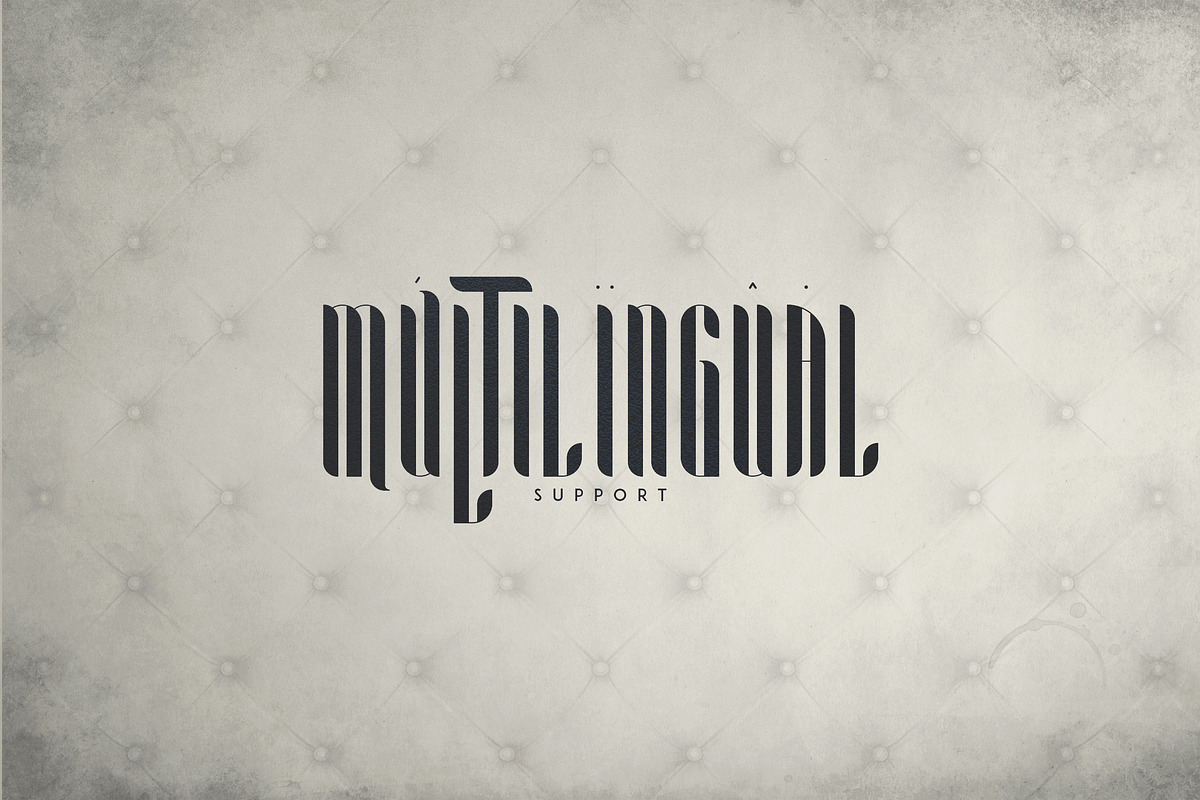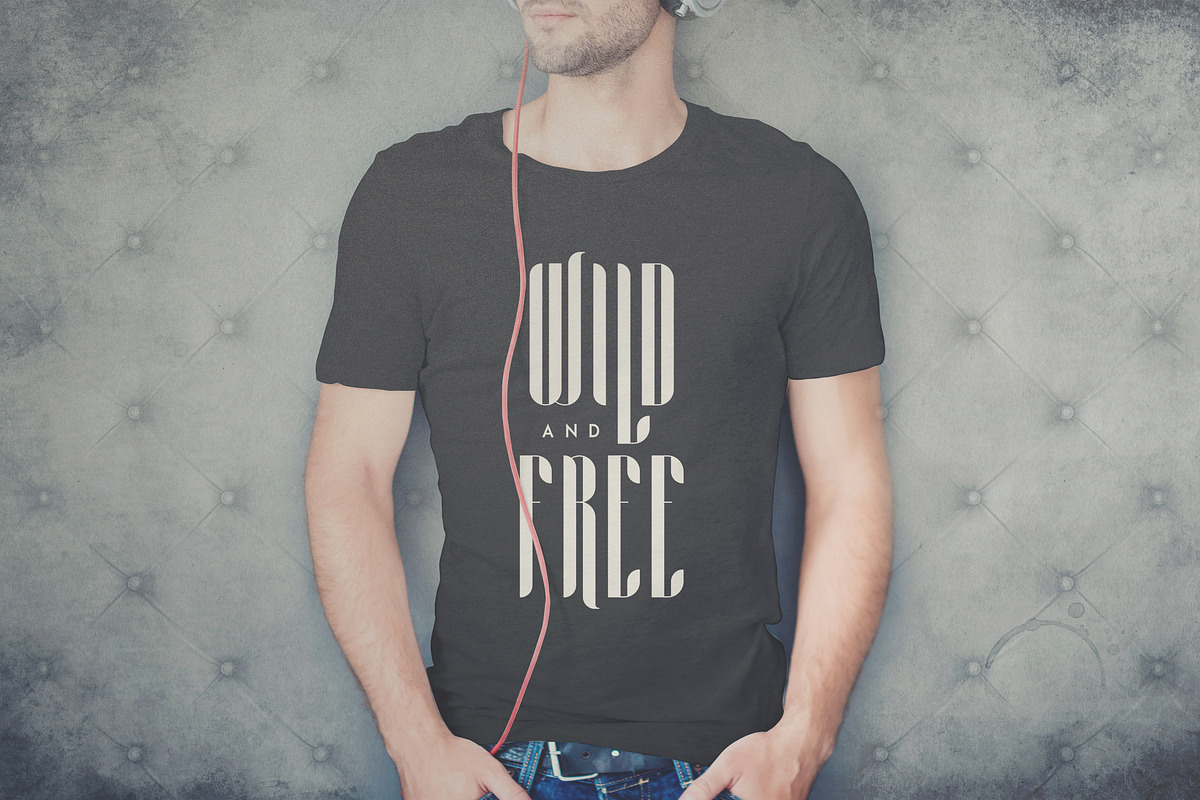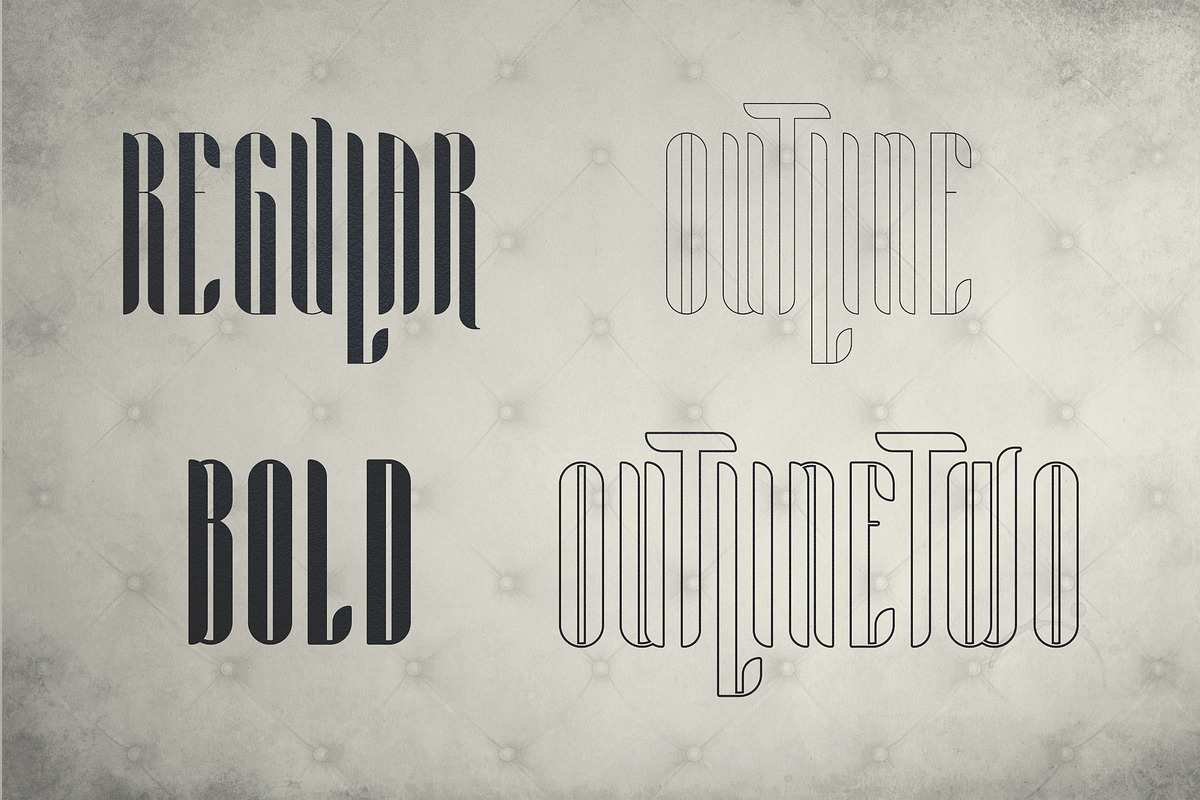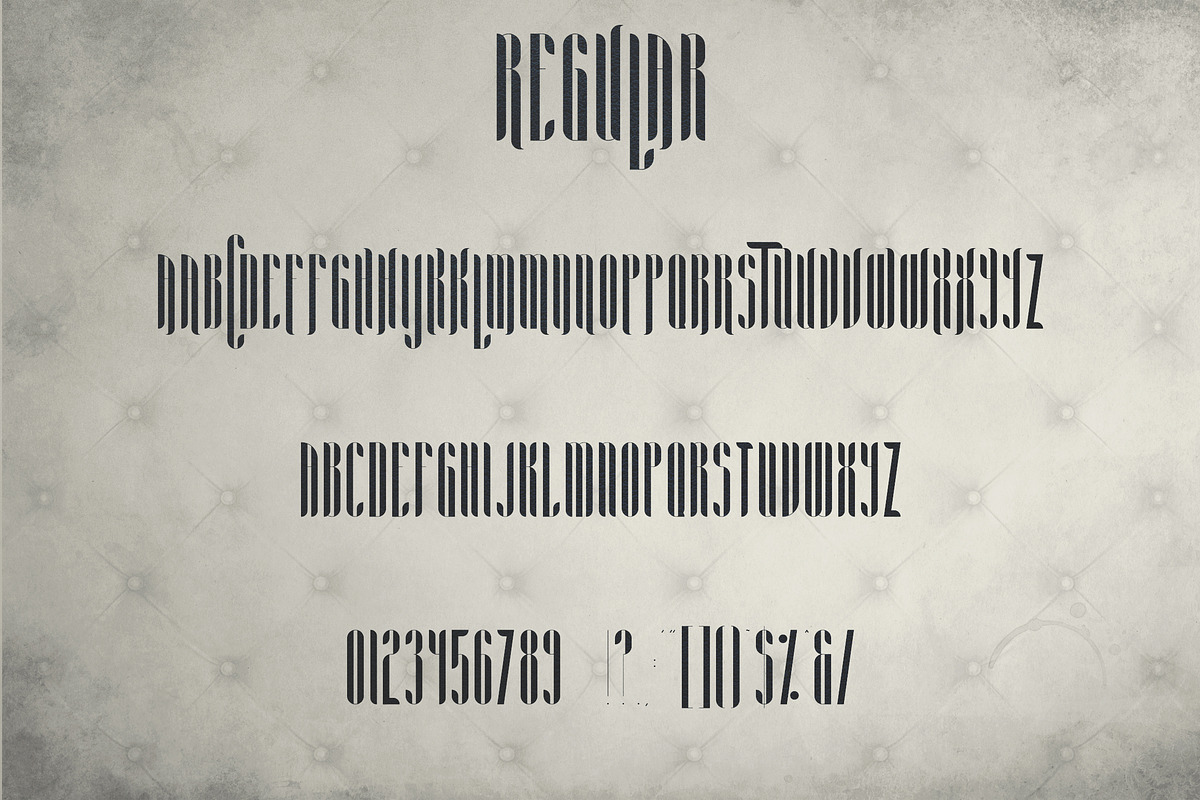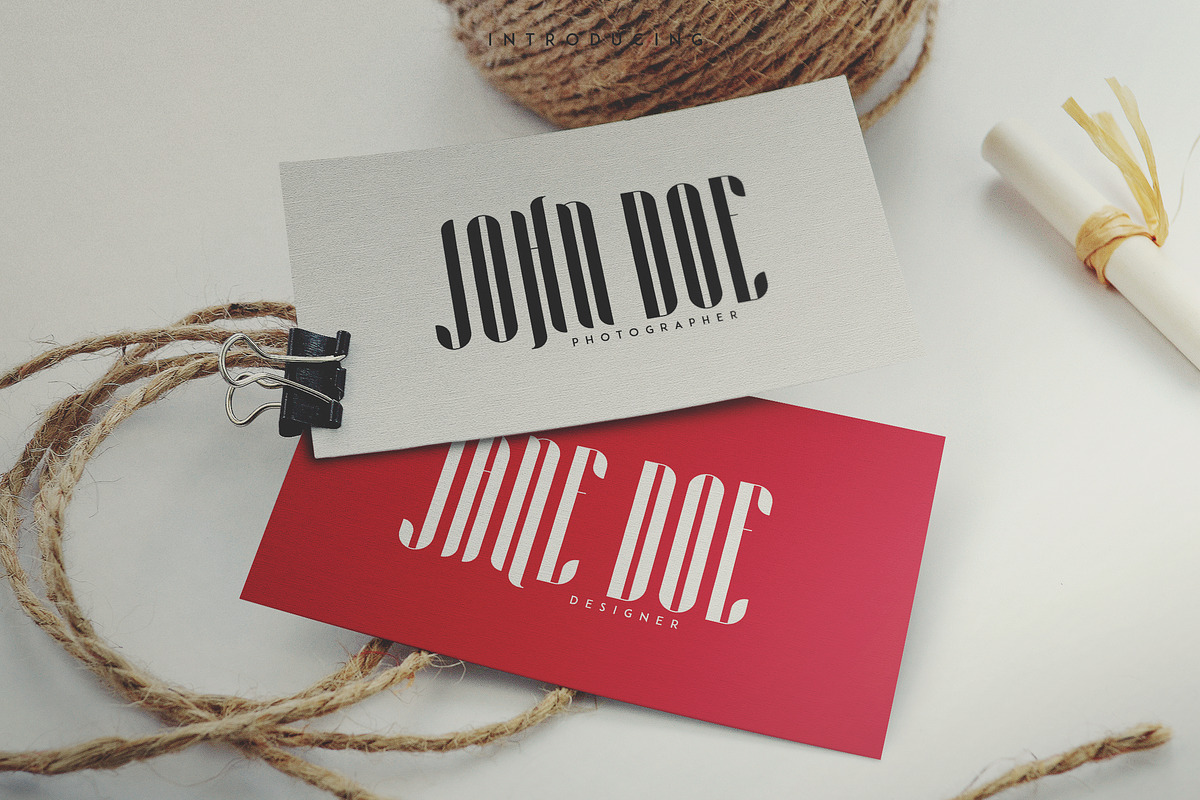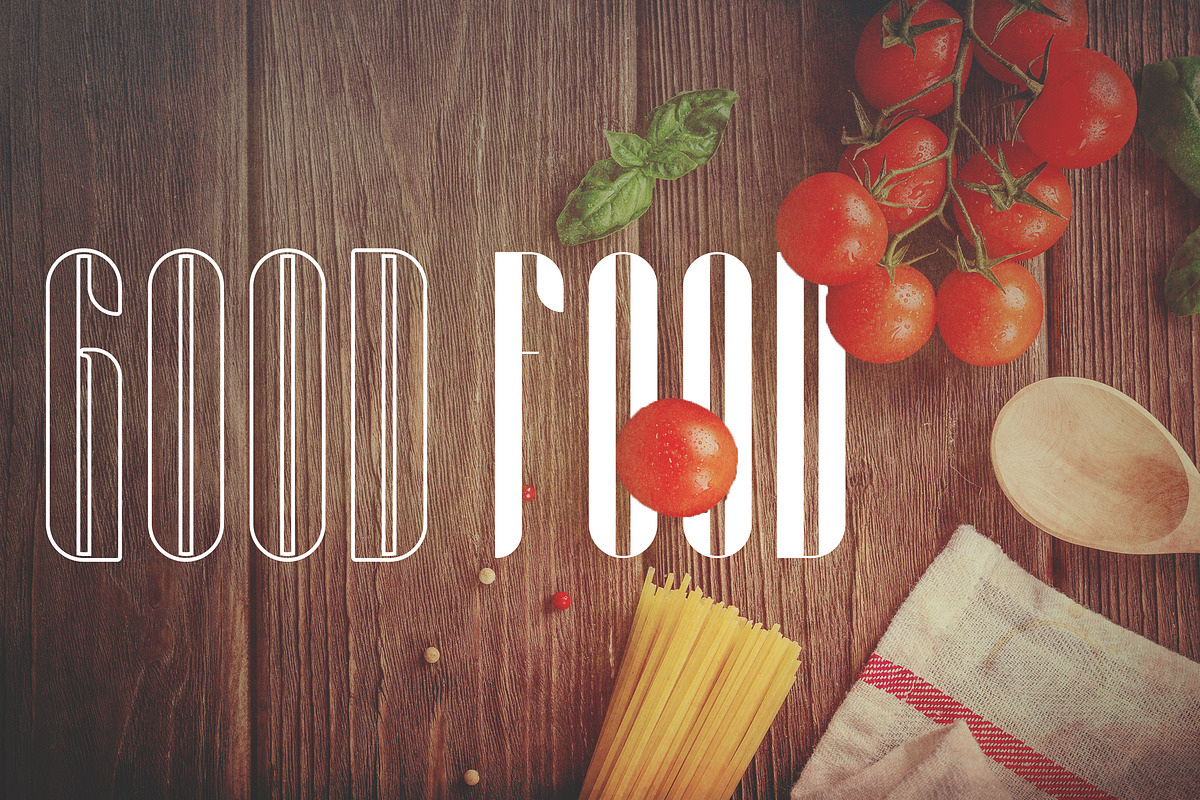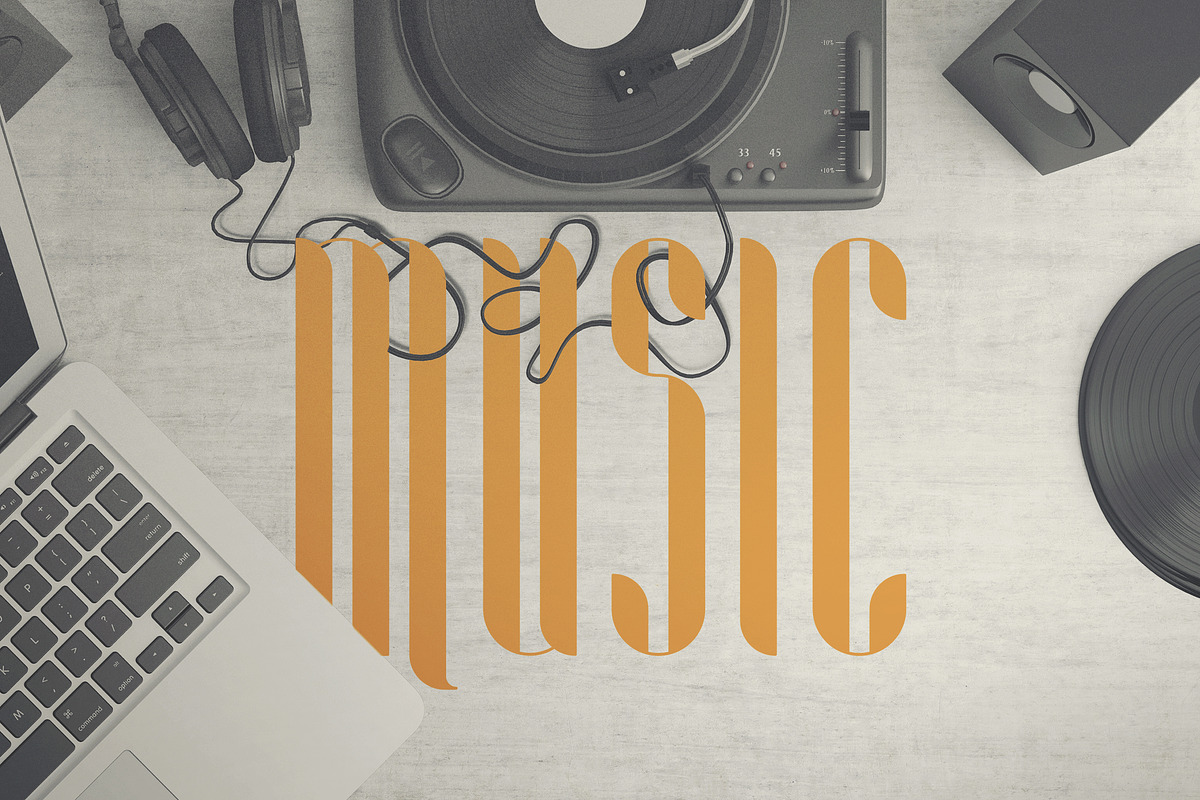
Aria is long, elegant display typeface with 4 fonts and multilingual support. It's a very versatile font that works great in large and small sizes.
Aria is perfect for branding projects, home-ware designs, product packaging, magazine headers - or simply as a stylish text overlay to any background image.
- Aria Regular
- Aria Bold
- Aria Outline
- Aria OutlineTwo